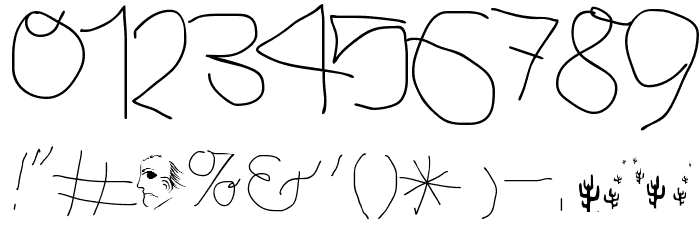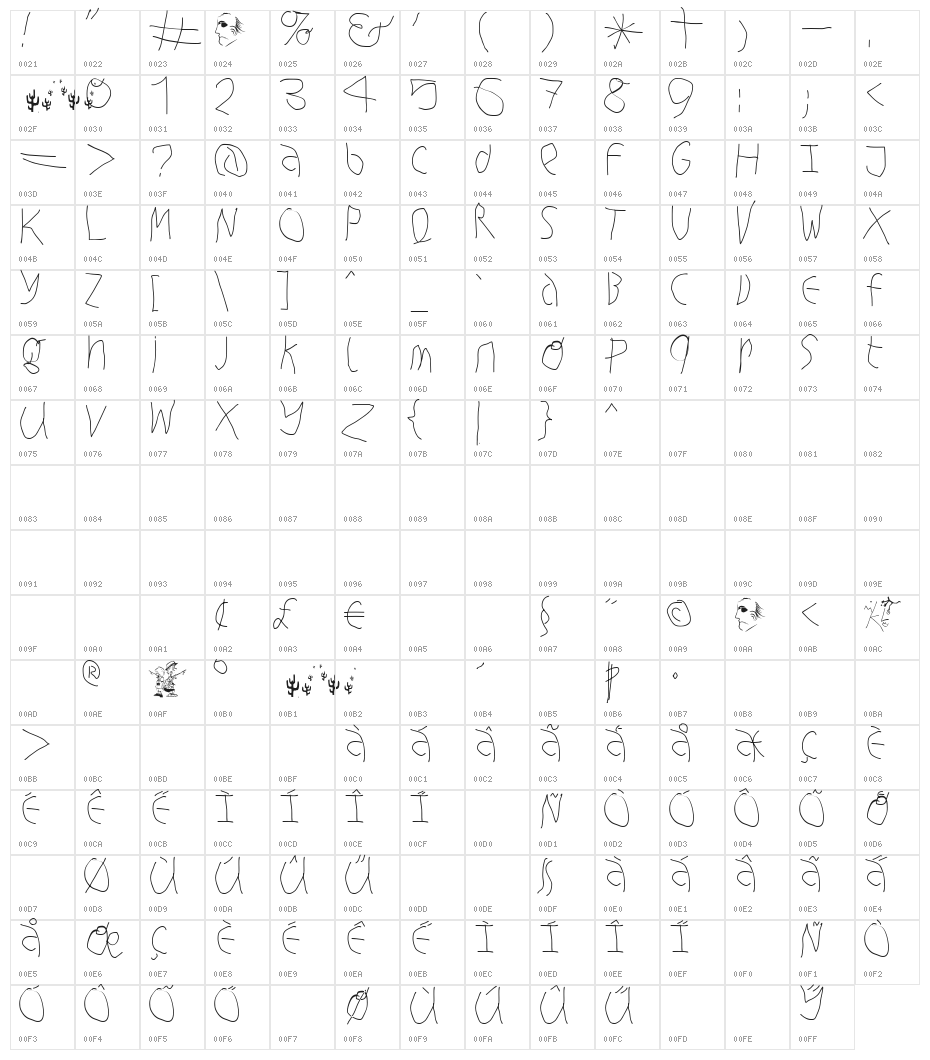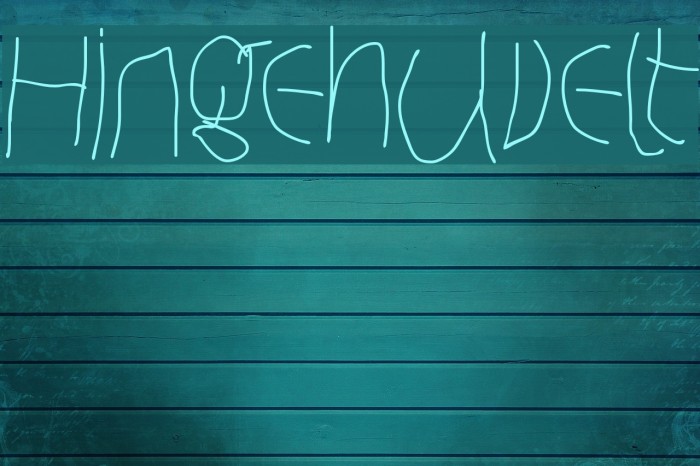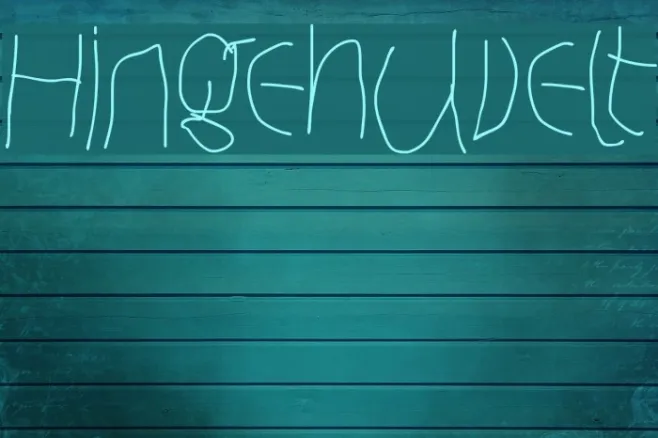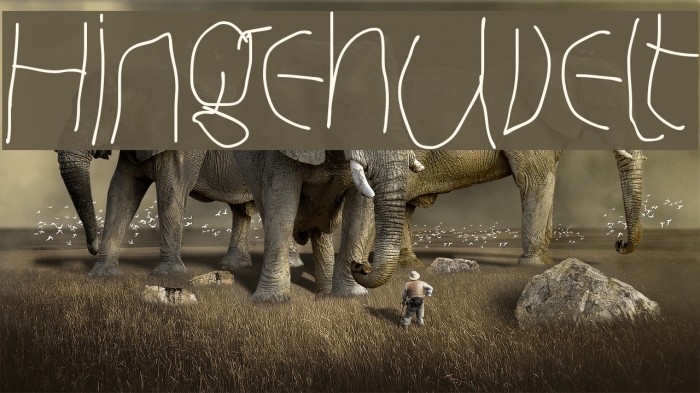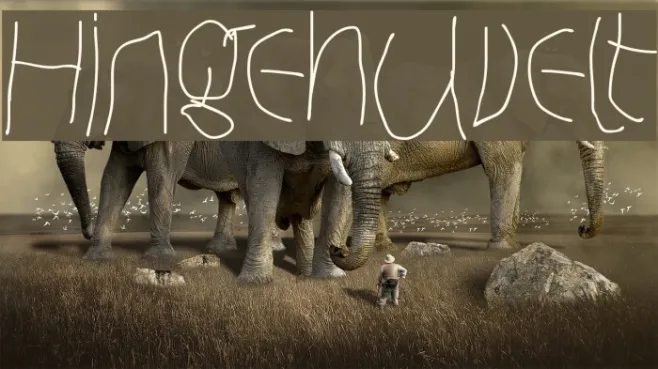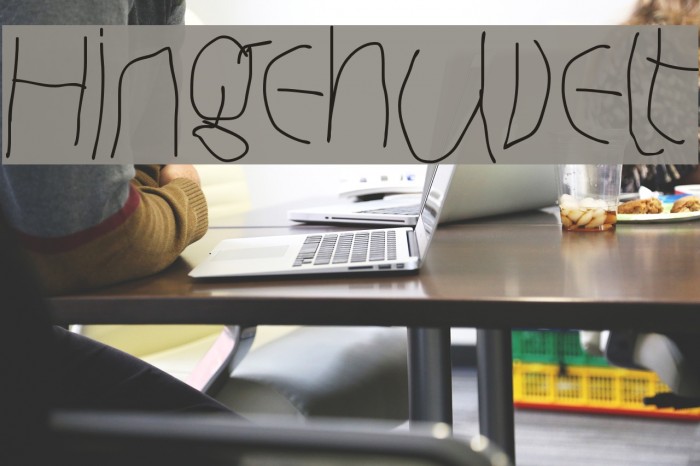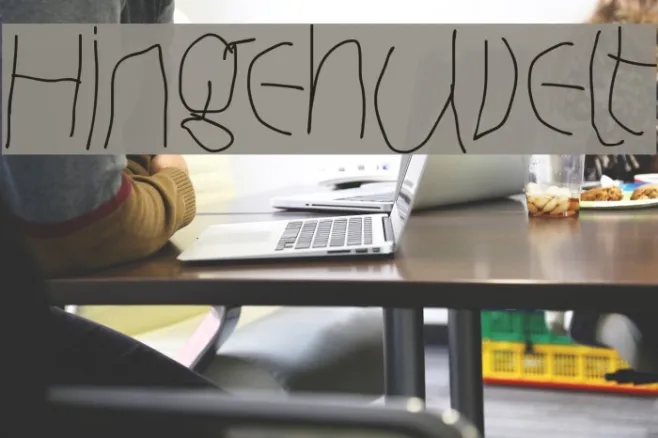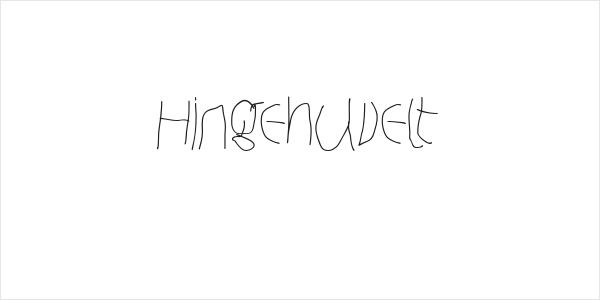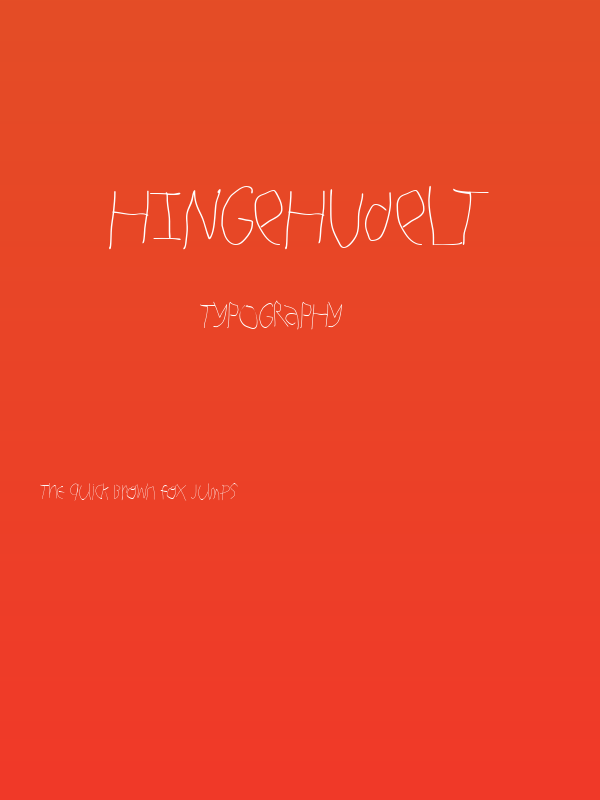
Hingehudelt Font
Hingehudelt Description
This font features a whimsical and playful design, characterized by its irregular, hand-drawn appearance. The letters are composed of thin, uneven strokes that give it a casual, artistic feel. The uppercase and lowercase letters maintain a consistent style, with quirky curves and angles that add to its charm. Numbers and special characters follow the same playful aesthetic, making the font suitable for creative projects. The overall look is reminiscent of doodles or sketches, offering a unique and informal vibe.
| Use Case | Logos, Posters, Invitations |
| Proposed Projects | Ideal for children's books, creative posters, casual invitations, and artistic branding. |